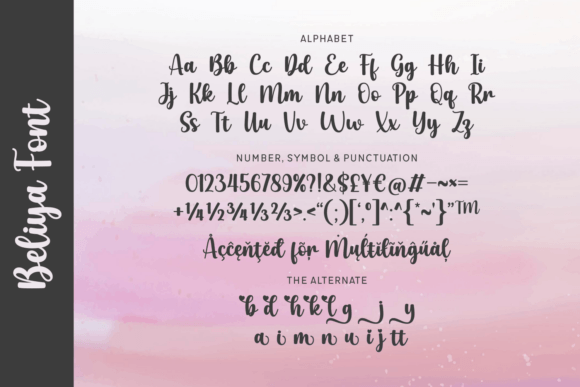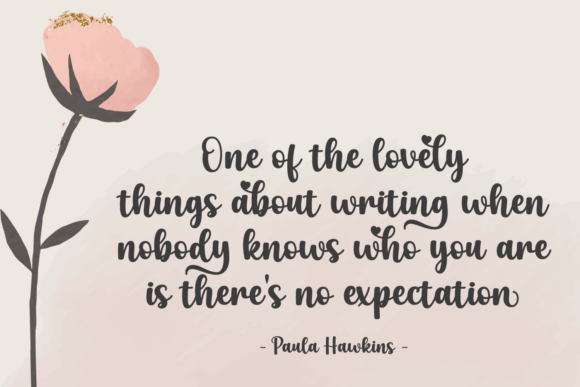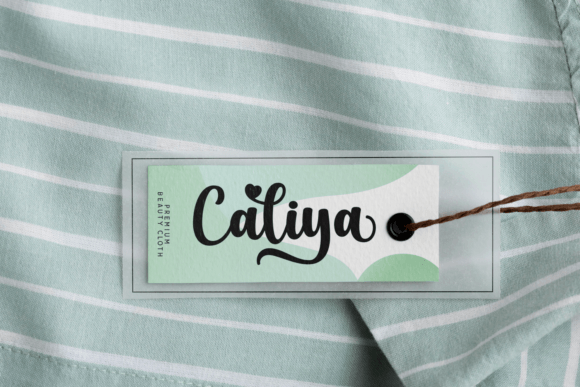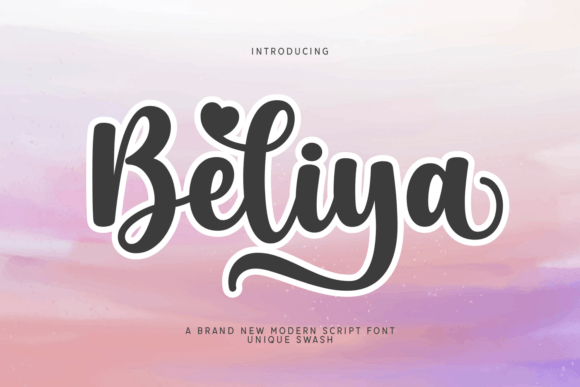
Introduction to Beliya Font
Beliya is a modern script font with bold strokes, unique swashes, and a playful heart detail, making it a perfect choice for fun and stylish projects.
Its lively and dynamic design is ideal for logos, greeting cards, invitations, and branding that need a touch of charm and creativity With its versatility and smooth flow, Beliya works beautifully across both digital and print formats.
Key Features of Beliya Font
Why Choose Beliya Font?
Beliya Font offers exceptional quality and versatility, making it a valuable addition to your design toolkit. Whether you’re creating for personal projects or commercial use, Beliya Font delivers professional results.